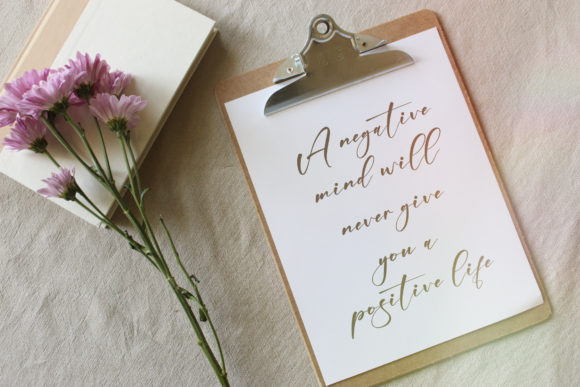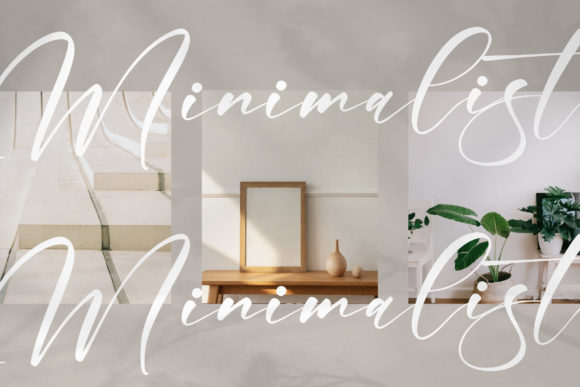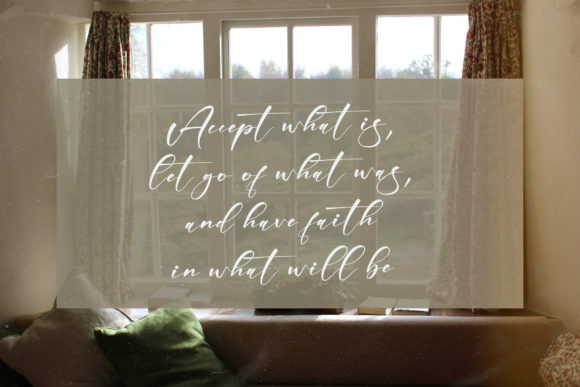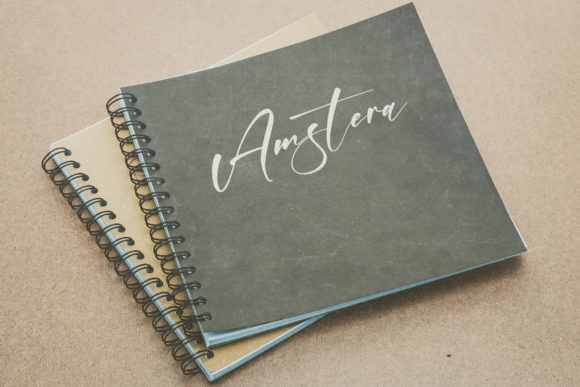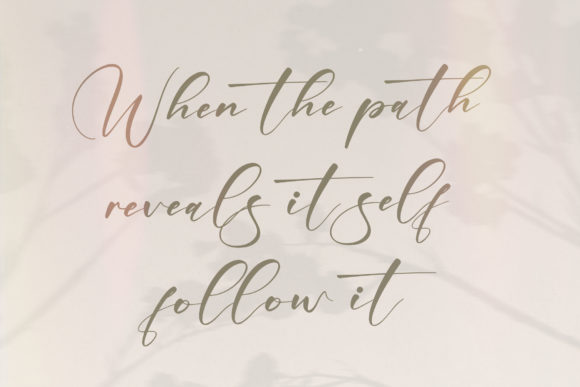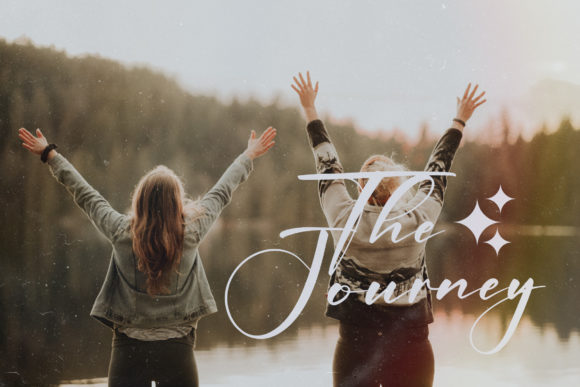
Introducing Amstera Font: The Flowing Script Font for Stunning Designs
Are you a designer or crafter looking for a font that exudes elegance and sophistication? Look no further than Amstera Font, a beautiful flowing script font that’s perfect for creating stunning wedding invitations, stationary art, social media posts, and more. In this article, we’ll dive into the world of Amstera Font, exploring its features, uses, and benefits, as well as provide tips and inspiration for incorporating it into your designs.
What is Amstera Font?
Amstera Font is a gorgeous script font that’s characterized by its flowing, cursive lines and elegant letterforms. Its ravishing style is sure to capture the attention of anyone who sees it, making it perfect for designs that require a touch of sophistication and glamour. Whether you’re creating wedding invitations, branding materials, or social media posts, Amstera Font is sure to make your designs stand out.
Features of Amstera Font
So, what makes Amstera Font so special? Here are just a few of its key features:
- Flowing script style: Amstera Font features a beautiful, flowing script style that’s perfect for creating elegant and sophisticated designs.
- Elegant letterforms: Each letterform in Amstera Font is carefully crafted to exude elegance and refinement, making it perfect for designs that require a touch of luxury.
- Versatile: Amstera Font is incredibly versatile, making it suitable for a wide range of design applications, from wedding invitations to social media posts.
Uses for Amstera Font
So, what can you use Amstera Font for? The possibilities are endless! Here are just a few ideas to get you started:
- Wedding invitations: Amstera Font is perfect for creating stunning wedding invitations that set the tone for a beautiful and elegant wedding.
- Stationary art: Use Amstera Font to create beautiful stationary art, including greeting cards, thank you cards, and more.
- Social media posts: Add a touch of elegance to your social media posts with Amstera Font, making them perfect for promoting your brand or business.
- Branding materials: Use Amstera Font to create elegant and sophisticated branding materials, including logos, business cards, and more.
Tips for Using Amstera Font
Here are a few tips for getting the most out of Amstera Font:
- Use it sparingly: Amstera Font is a statement font, so use it sparingly to add emphasis and elegance to your designs.
- Pair it with contrasting fonts: Pair Amstera Font with contrasting fonts to create visual interest and add depth to your designs.
- Experiment with colors: Amstera Font looks stunning in a range of colors, so don’t be afraid to experiment and find the perfect hue for your design.
Why Choose Amstera Font?
So, why choose Amstera Font for your designs? Here are just a few reasons:
- Elegance and sophistication: Amstera Font exudes elegance and sophistication, making it perfect for designs that require a touch of luxury.
- Versatility: Amstera Font is incredibly versatile, making it suitable for a wide range of design applications.
In conclusion, Amstera Font is a stunning flowing script font that’s perfect for designers and crafters looking to add a touch of elegance and sophistication to their designs. With its ravishing style, elegant letterforms, and versatility, Amstera Font is sure to become a go-to font in your design arsenal. So why wait? Fall for Amstera Font’s charms and start creating gorgeous designs today!